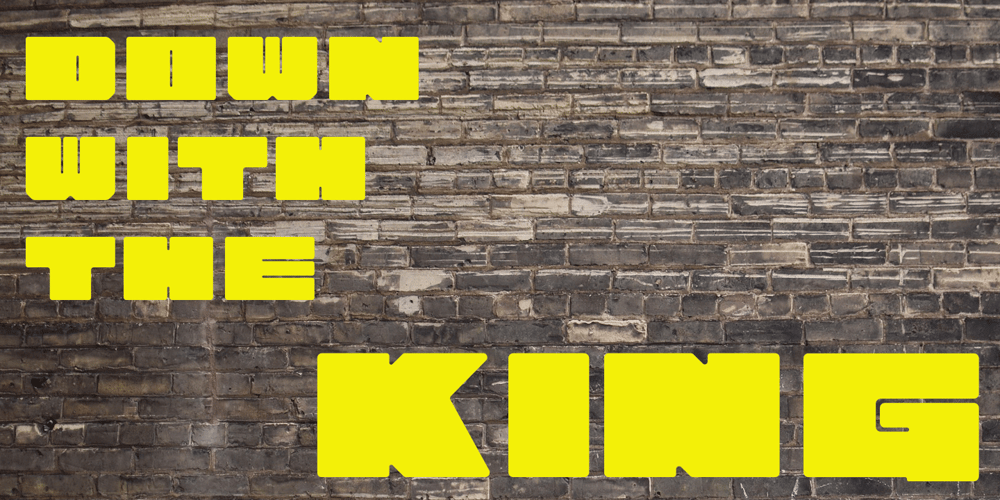
Down With The King Font Family was designed by Kent Swecker and published by A New Machine. Down With The King contains 1 styles and family package options. Down With the King is a very bold all caps font best used for large titles, headers and logo work. The lower case letters have rounded edges for a softer feel.